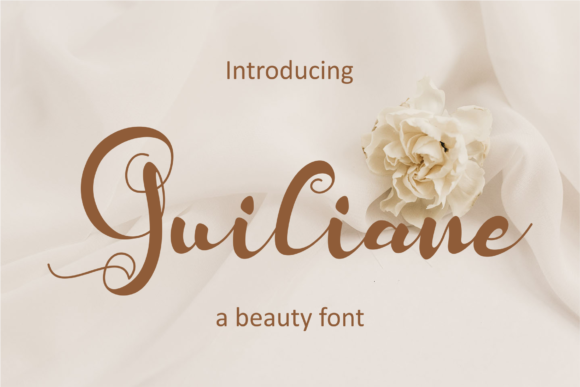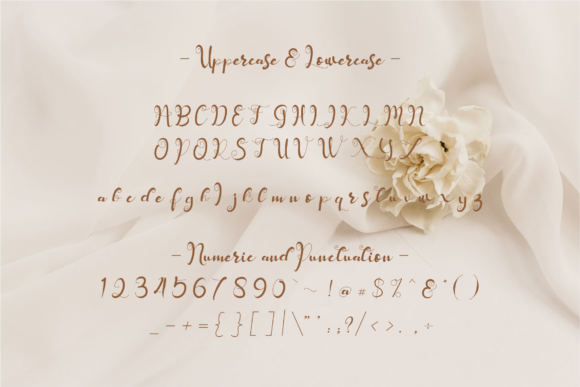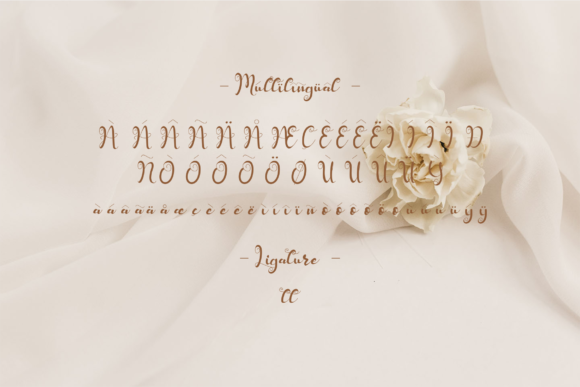
About Guiliane Font
Guiliane is a timeless handwritten font. It's the perfect choice for your most favorite projects! Fall in love with its incredibly versatile style and use it to create gorgeous wedding invitations, beautiful stationary art, eye-catching social media posts, and much more!